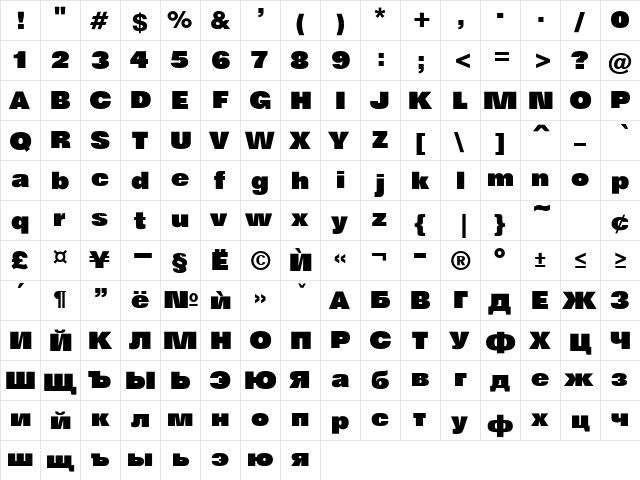
HebarExtraBlack Regular
Design Context for HebarExtraBlack Typeface
HebarExtraBlack is a composed and adaptable typeface that performs quietly and consistently across a wide range of design contexts.
Pro Tip: Use HebarExtraBlack in both headline and body roles to test its range before committing to a single application.